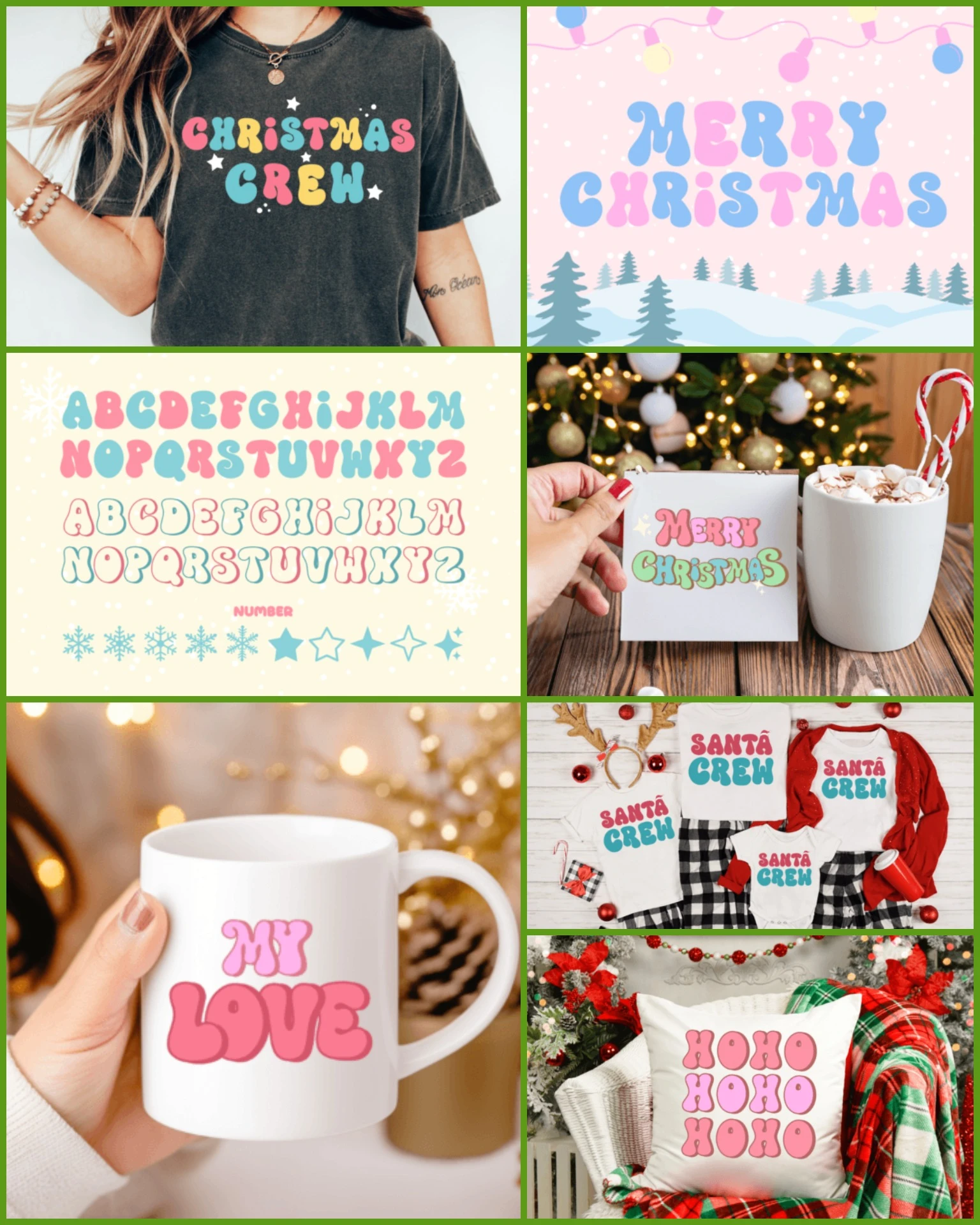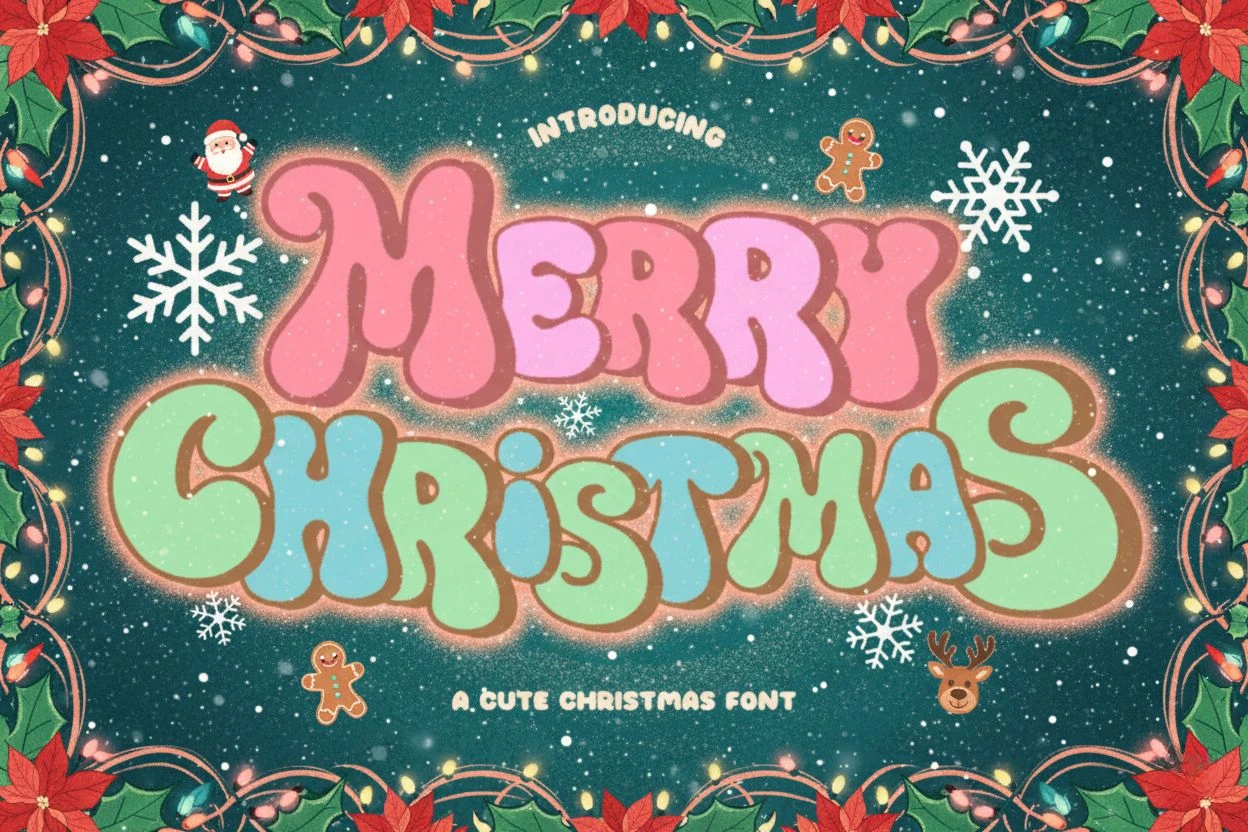
Celebrate the magic of the season with Merry Christmas Font, a festive and charming typeface designed to spread joy and warmth in every project. With its playful curves and cheerful style, this font perfectly captures the holiday spirit, making it ideal for greeting cards, invitations, posters, banners, social media graphics, and branding.
Whether you’re crafting cozy winter designs or adding a retro twist to your Christmas visuals, Merry Christmas Font offers the perfect balance of fun, creativity, and elegance. Its cute and decorative
appearance makes it a must-have for designers who want their work to stand out during the festive season.